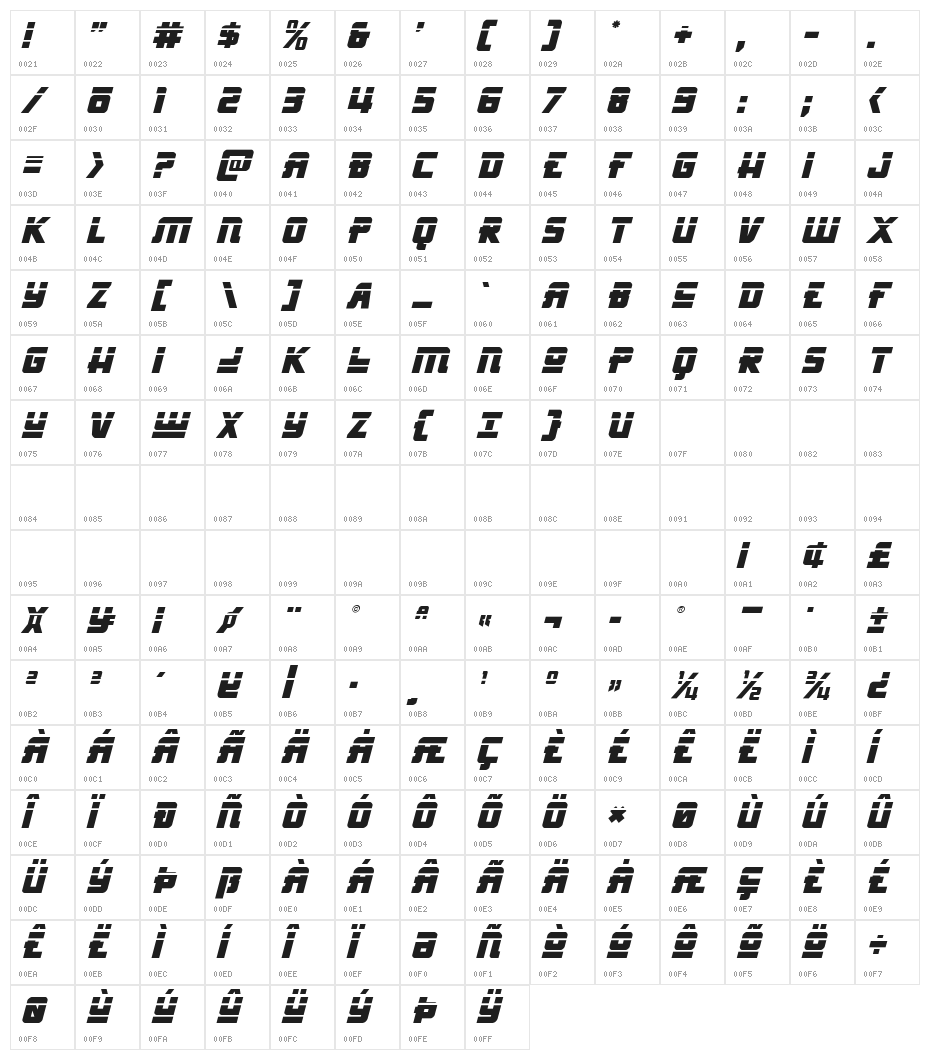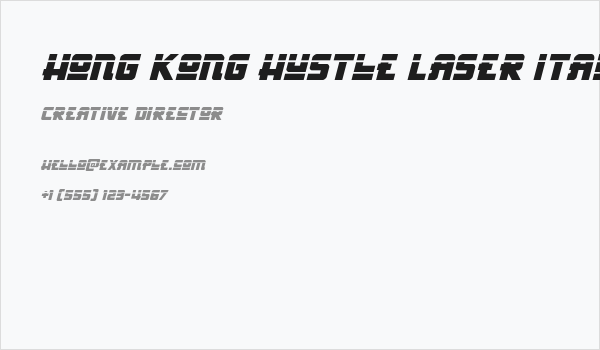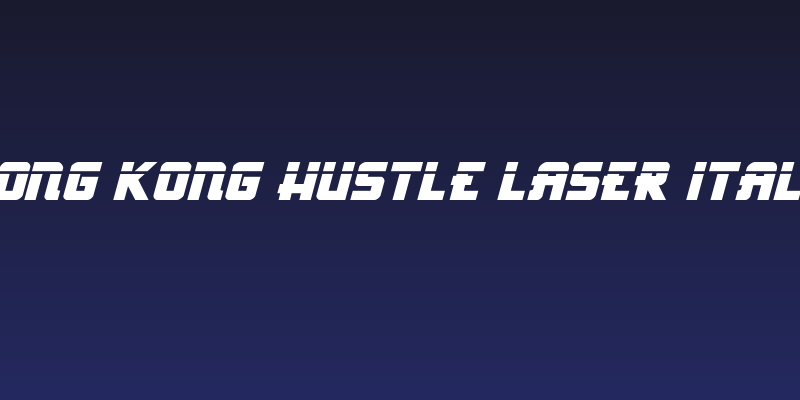
Hong Kong Hustle Laser Italic Font
Hong Kong Hustle Laser Italic Description
This font features a bold, futuristic design with a strong geometric influence. The characters are sharply angled, giving a sense of speed and modernity. The strokes are thick and consistent, creating a powerful visual impact. The italic slant enhances the dynamic feel, making it suitable for projects that require a sense of motion or energy. The font includes uppercase and lowercase letters, numerals, and a variety of special characters, all maintaining the same bold and angular style.
| Proposed Projects | Ideal for sci-fi movie posters, video game titles, technology branding, and sports team logos. |